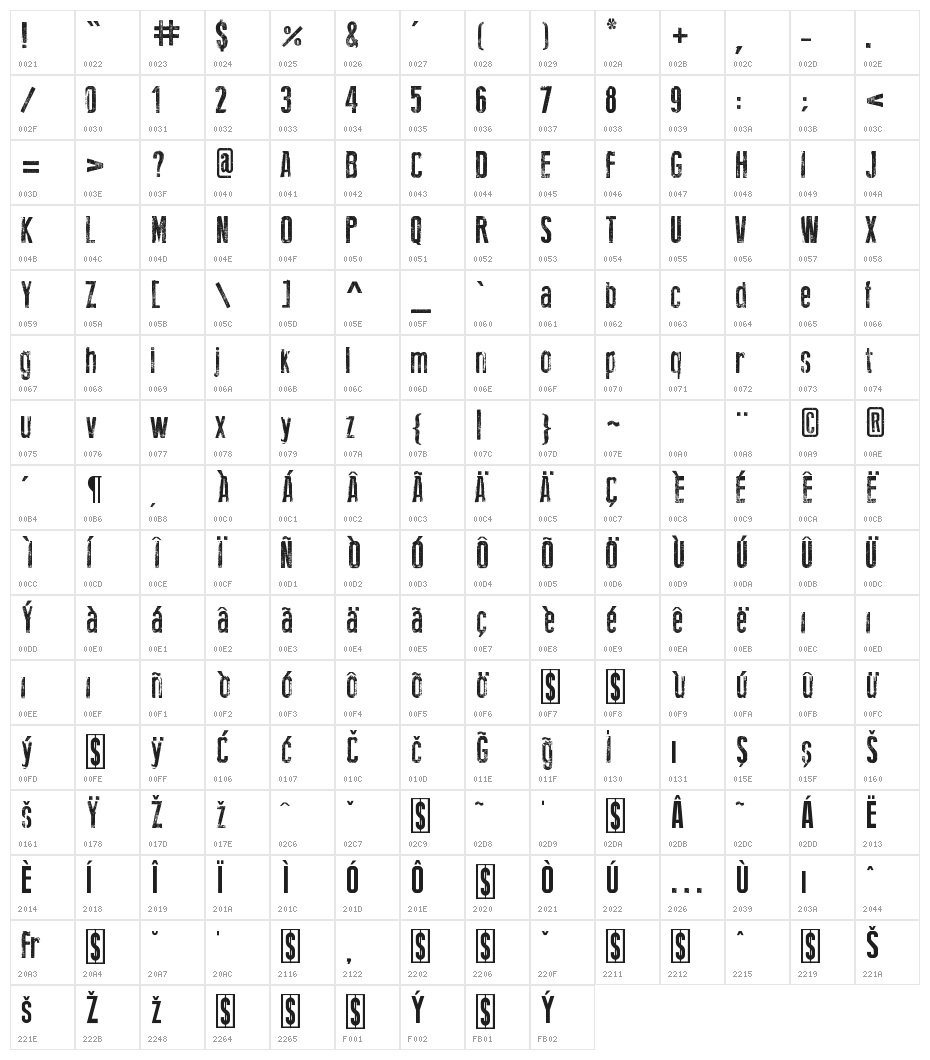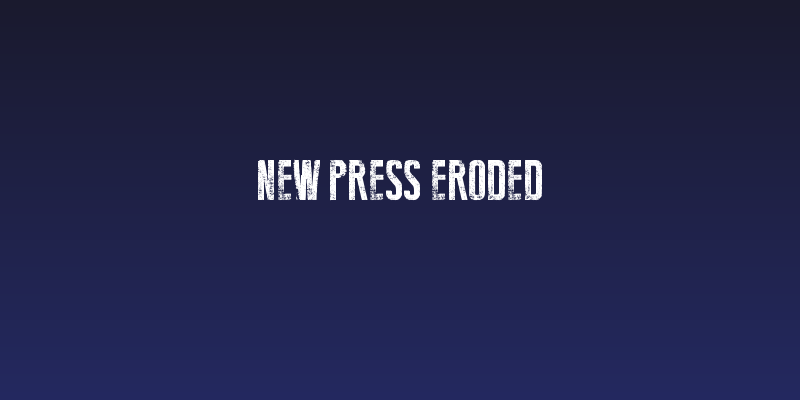
New Press Eroded Font
New Press Eroded Description
This font features a distressed, eroded style that gives it a rugged and vintage appearance. The characters are bold and uppercase letters have a strong presence, while the lowercase letters maintain a consistent style. The numbers and special characters follow the same eroded pattern, adding to the overall aesthetic. The texture suggests a worn-out, industrial feel, making it ideal for projects that require a gritty, authentic look. The font's unique style is perfect for creating eye-catching headlines, posters, and designs that need a touch of character and history.
Overall StyleVintage
Use CaseHeadlines, Posters, Branding
Proposed ProjectsIdeal for posters, headlines, branding, and designs needing a gritty, vintage feel.